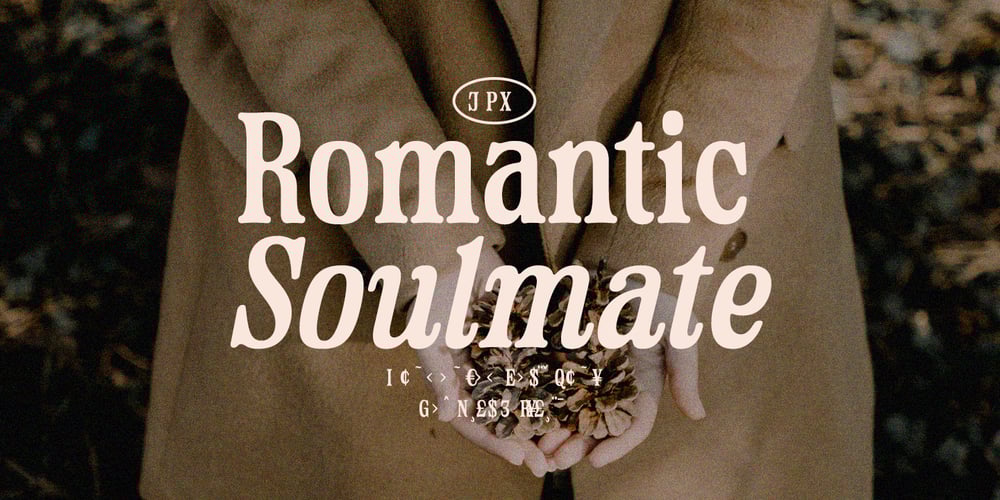
Romantic Soulmate Font Family was designed by Hendry Juanda and published by Letterhend. Romantic Soulmate contains 2 styles and family package options. Romantic Soulmate is a sophisticated condensed serif typeface. Perfectly to be applied to the other various formal forms such as invitations, labels, logos, magazines, books, greeting / wedding cards, packaging, fashion, make up, stationery, novels, labels or any type of advertising purpose.Features : Regular & Italic style lowercase uppercase numbers and punctuation multilingual alternates PUA encoded We highly recommend using a program that supports OpenType features and Glyphs panels like many of Adobe apps and Corel Draw, so you can see and access all Glyph variations.